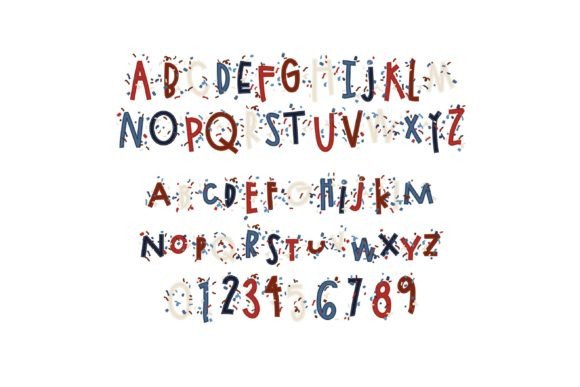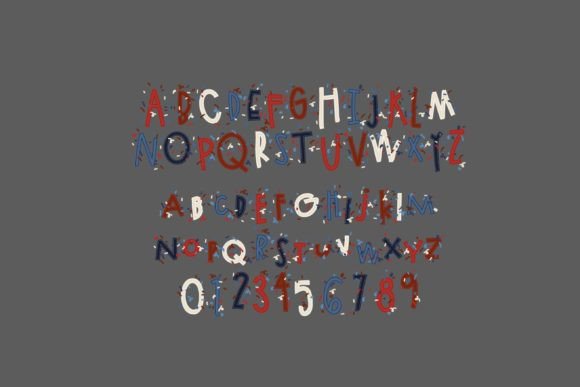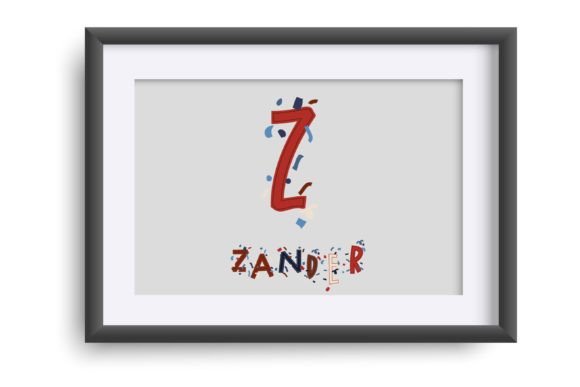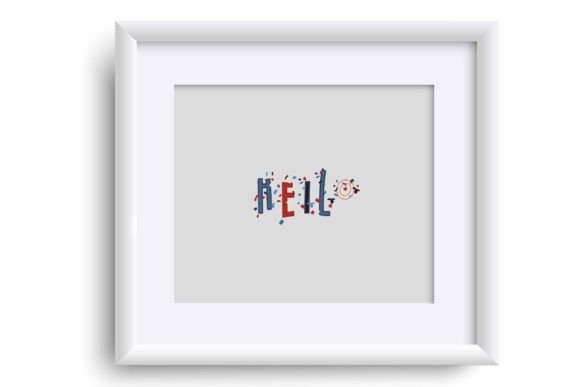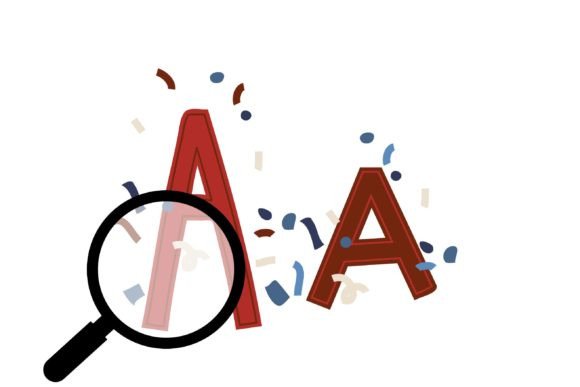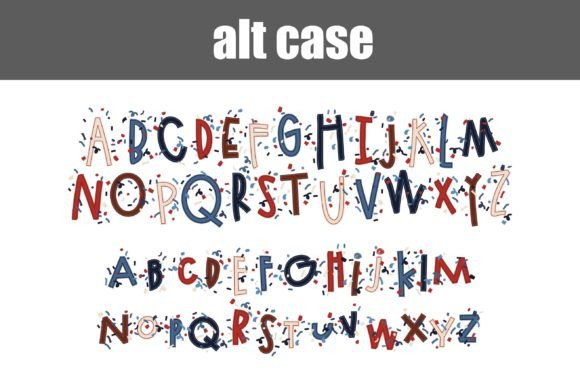
Introducing Confetti Usa Font: A Vibrant Celebration of Color and Creativity
Are you tired of using the same old fonts for your designs? Look no further! Confetti Usa Font is here to add a pop of color and excitement to your projects. This full-color font features striped celebratory lettering with a bold red, white, and blue color palette that’s perfect for creating festive and eye-catching designs.
What Makes Confetti Usa Font So Special?
Confetti Usa Font is not your average font. It’s an OpenType full-color (SVG) font that allows you to add a range of colors to your text, making it perfect for designers and crafters who want to take their work to the next level. The font features striped lettering with a classic red, white, and blue color scheme that’s reminiscent of American celebrations like Independence Day and patriotic events.
Alternate Color Version
But that’s not all! Confetti Usa Font also comes with an alternate version that can be accessed through your system’s character map. This alt version contains additional colors for all the letters, giving you even more creative freedom to experiment with different color combinations. Imagine being able to match your brand’s colors or create a unique look for your designs – the possibilities are endless!
Compatibility and Color Support
Tips for Using Confetti Usa Font
To get the most out of Confetti Usa Font, here are a few tips to keep in mind:
- Use it for celebratory designs, such as party invitations, holiday cards, or patriotic-themed projects.
- Experiment with different color combinations to create unique looks that match your brand or design style.
- Pair it with other fonts to create interesting contrasts and add visual interest to your designs.
- Don’t be afraid to get creative and try out new and innovative ways to use this versatile font.
Who Can Benefit from Confetti Usa Font?
Confetti Usa Font is perfect for:
- Designers looking to add a pop of color and creativity to their work.
- Crafters who want to create unique and eye-catching projects, such as handmade cards, invitations, or scrapbooking pages.
- Small business owners who want to create custom branding materials, such as logos, brochures, or social media graphics.
- Anyone looking to add a touch of celebration and festivity to their designs.